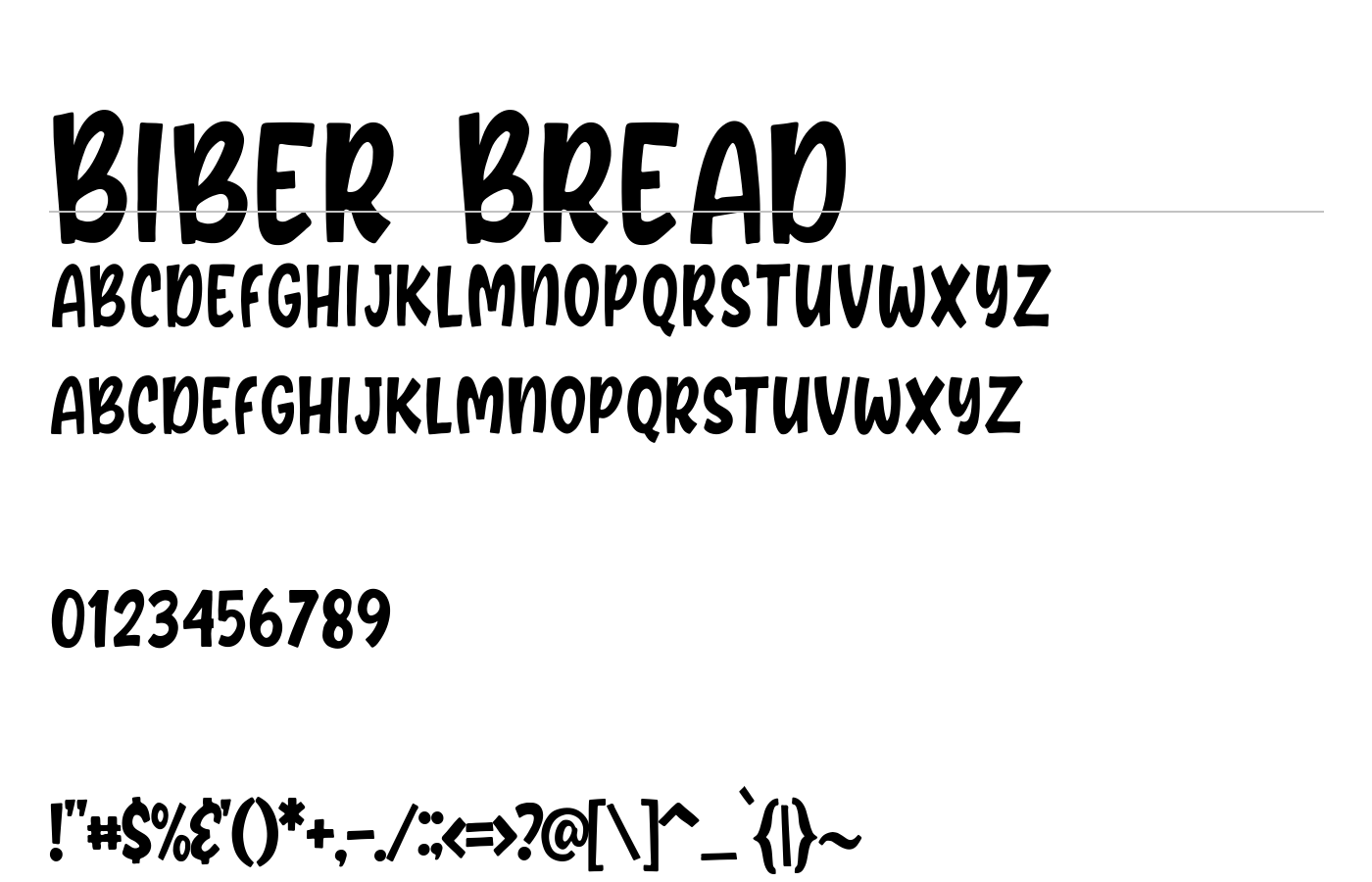
Biber Bread is a playful and bold sans serif font with a hand-drawn, casual feel. Its slightly condensed letterforms and consistent weight create an approachable and energetic style, making it perfect for fun, informal designs like children’s books, posters, or branding that aims to feel friendly and lively. The font’s quirky shapes add personality without sacrificing clarity, ideal for eye-catching headlines and creative projects.
Biber Bread Font
About Biber Bread Font
| Font family | Biber Bread Font |